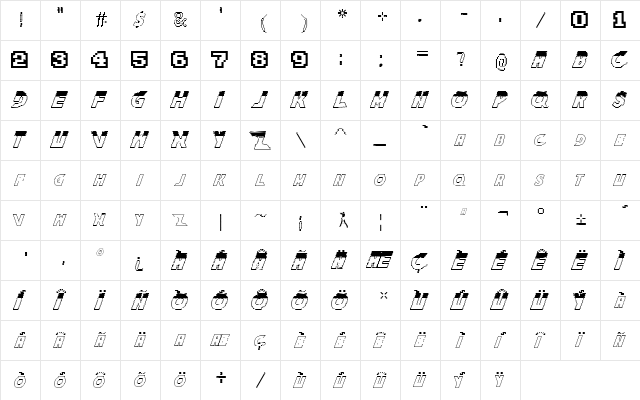
The King Of Fighters Family The King Of Fighters
| Foundry | Minea Nunes |
| Designer | Minea Nunes |
Design Context for The King Of Fighters Family Typeface
The King Of Fighters Family is a composed and adaptable typeface that performs quietly and consistently across a wide range of design contexts.